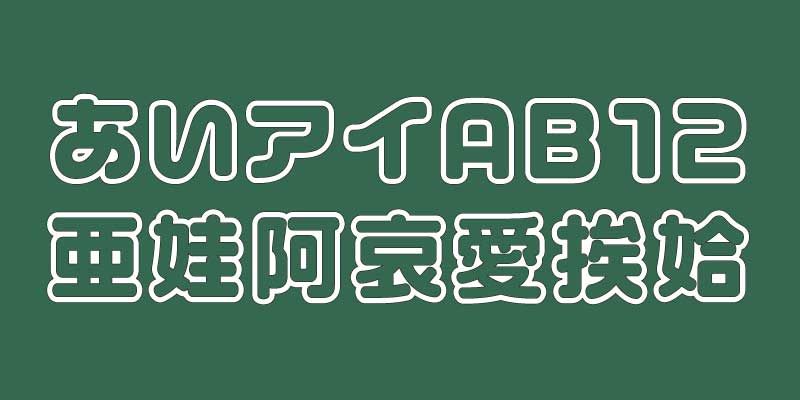
VDL-LogoMaru Jr Pop Font Free Download is a rounded, playful Japanese typeface with a pop-culture twist. Designed with soft, circular forms and a friendly, approachable appearance, this font is ideal for children’s content, educational materials, pop branding, toy packaging, and any project that needs a fun, energetic tone with clear legibility in both Japanese and Latin scripts.
With its bubbly aesthetic and cheerful vibe, VDL-LogoMaru Jr Pop Font is perfect for creating warm and engaging visuals. Its rounded katakana and kana characters maintain readability while adding a charming, youthful personality.